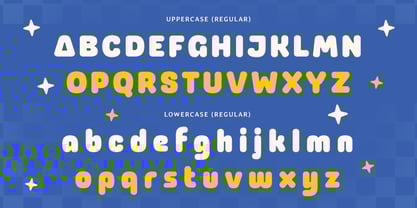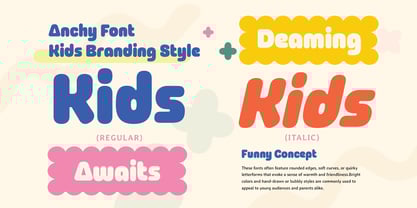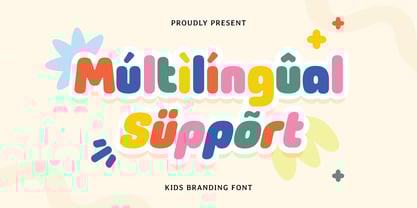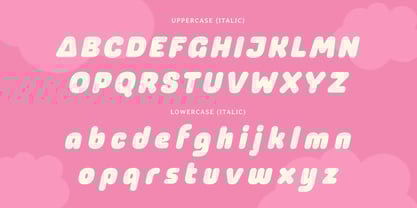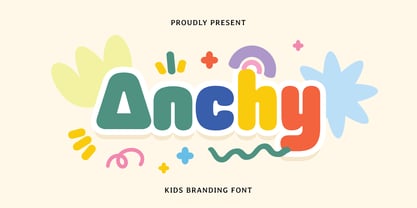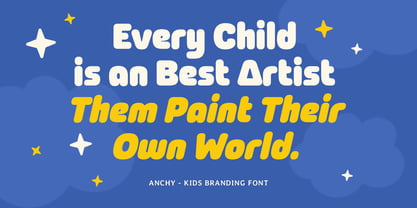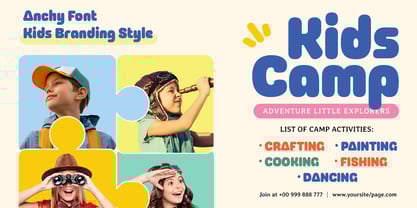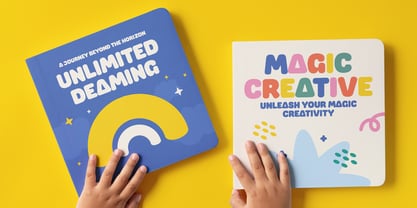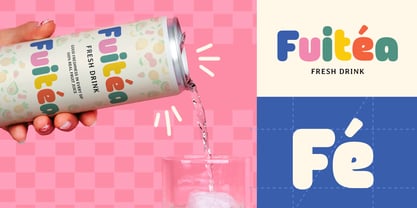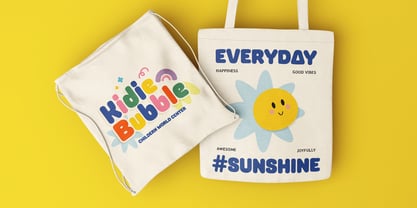
Anchy - Kids Branding Font
Munchy is a bold and bouncy kids font created to bring joy and playfulness to branding and design projects. With rounded edges, quirky characters, and a friendly style, Munchy is perfect for toy packaging, children’s books, educational materials, logos, birthday invitations, and more. It instantly captures attention with a fun and approachable personality.
Designed with kids in mind, Munchy balances readability with charm, making it ideal for both headlines and creative content. Whether you're designing a brand for a daycare or launching a playful campaign, Munchy adds warmth and happiness to your visual identity.
Let Munchy brighten up your next design with its energetic character and creative flair—it’s fun, bold, and full of life!
Anchy Kids Branding Font Features:
Playful and Rounded Letterforms
Ready with Regular and Italic Version
Perfect for Kids Products, Logos, Invitations & Books
Punctuation, Numbers, and Symbols
Uppercase and Lowercase
Opentype Features